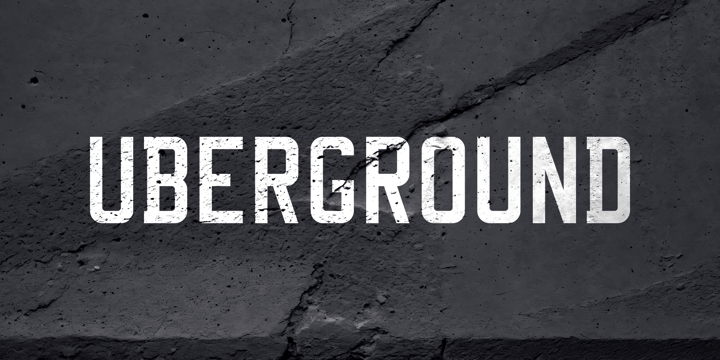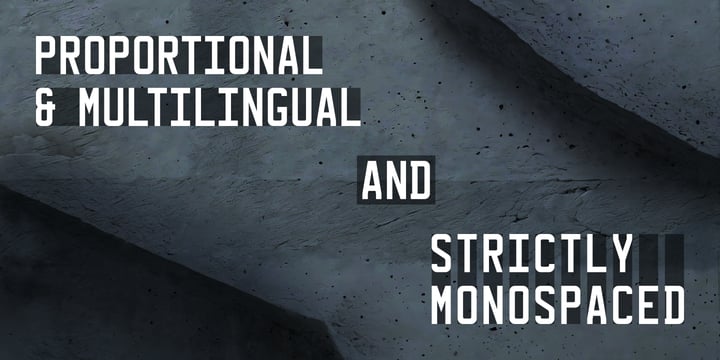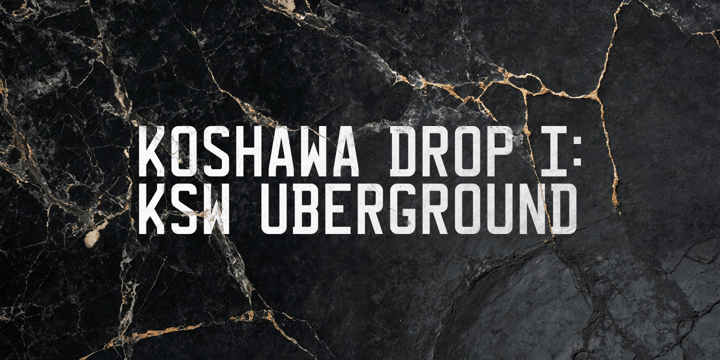
KSW Uberground
KSW Uberground is a versatile all-caps typeface that combines the advantages of German and British schools of the early 20th century. The balance of originality, readability, geometric modernism, and restrained brutalism creates a unique and recognizable style. This fonts are an excellent choice for titling, branding, posters, signs, navigation, industrial design, and more.
Typeface's precise geometric grid is based on early specifications of “Engschrift” developed by the German Institute for Standardisation (DIN) in 1927. However, its proportions transformed to an even stricter width-to-height ratio of 1:2. The German precision of the ‘English’ font combined with a truly British design. Glyph forms took inspiration from the font known as ‘Mandatory’, introduced by Charles Wright type foundry in 1935 and still used on UK license plates nowadays. For utilitarian purposes, even commonly similar characters in this font are noticeably distinguishable from one to another, making the font easy and quick to read.